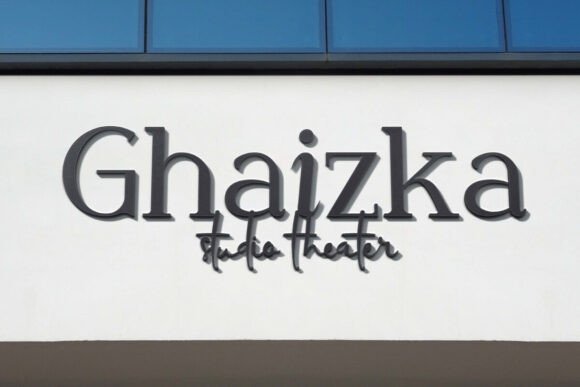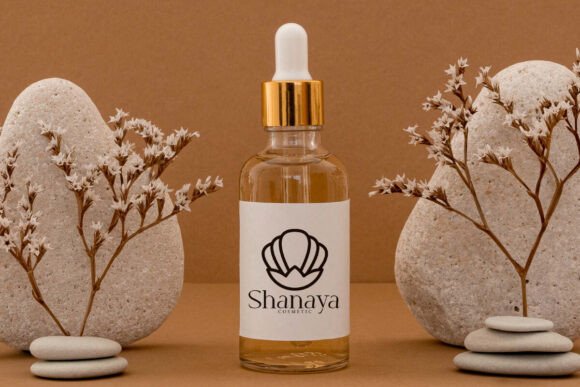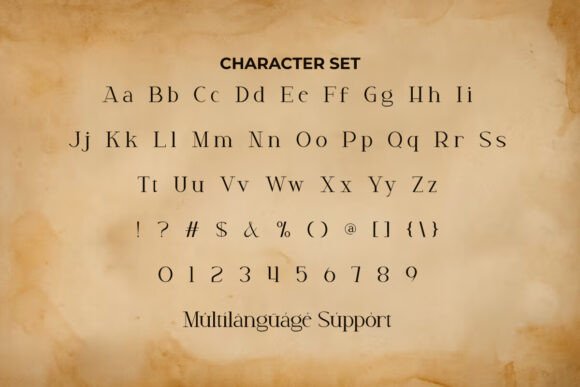
Dramatize Font
Dramatize Font is a beautiful aesthetic modern serif display font. This font can give the impression of a film with a dramatic title to attract attention. It will work well in many designs, such as brand image, custom design, invitation, label, menu, poster, product packaging, quote, signage, stationery, web, and more!